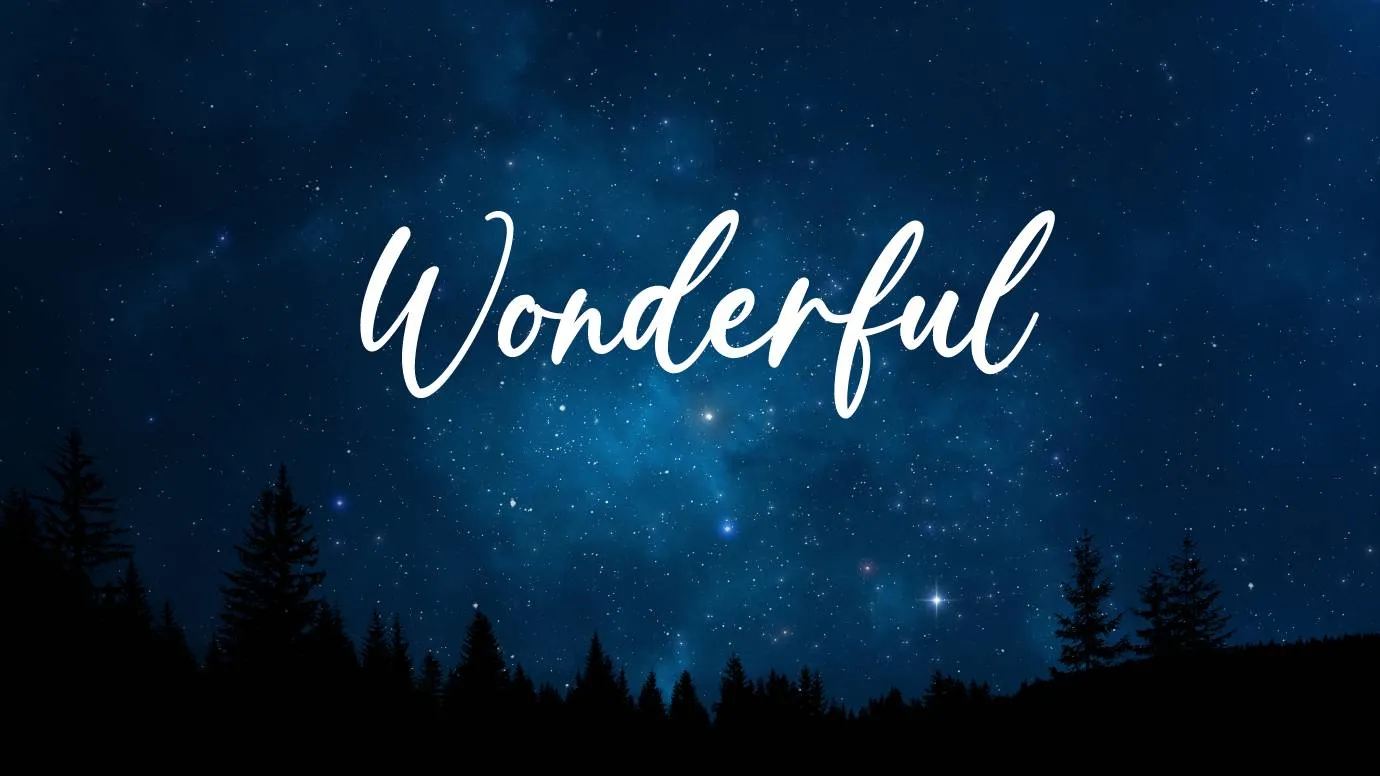
Wonderful Font
Wonderful Font is a very elegant and classy handwritten font with a calligraphy touch. This amazing font was designed by Aldi Raya Pradipta